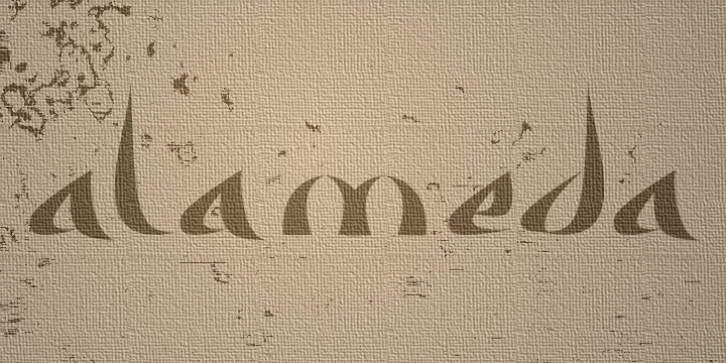
Alameda is the term used in Spain to designate a path between trees. This typeface is an old design seen from a new perspective of incandescent forms that offer a pleasant feeling. It is used primarily for logos.